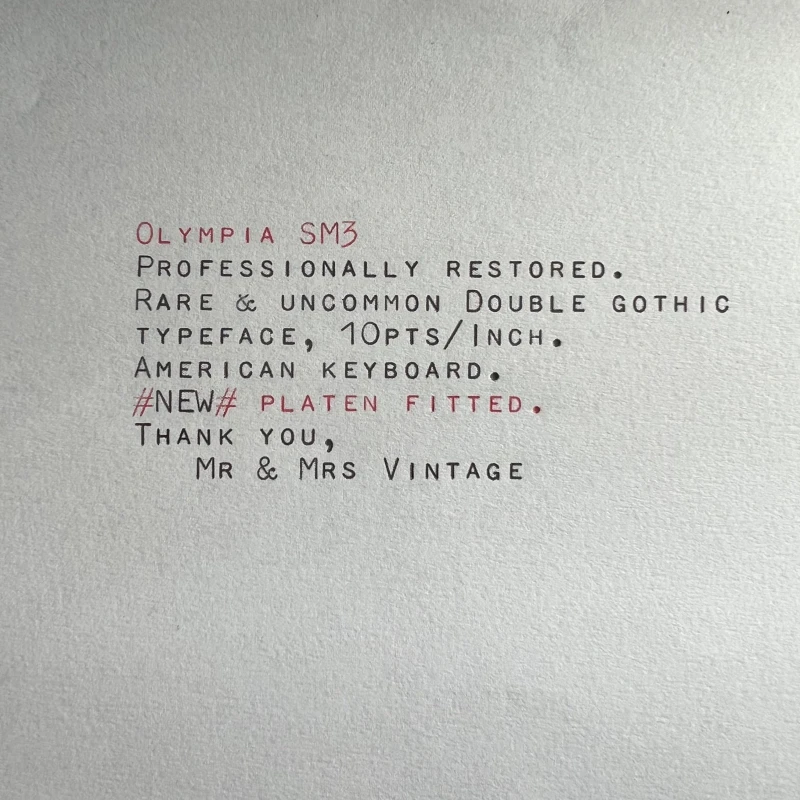
Underwood with only UPPER CASE letters
As a small child (I am 84 years old, right now) I once took a heavy Underwood typewriter, laying in a field somewhere, home on my scooter.
I still have the Underwood and am curious about its use, since it only possesses UPPER CASE lettering (in the letter blocks for upper case- as well as lower case).
Could it have been used for teletype/telegraph/telegram forms etc. and when; wartime? And what is the manufacturing date?
The details:
Typewriter # II-6224266 (II could also be a small OO). On the paper plate and casing is stamped/painted the number 83. The detachable front plate has a (paint-)stamped mark "ASPA".
It is still in working condition, but needs a thorough clean up.
I am curious if any of you can provide details.
How interesting, I have a telegraphers Remington that was serviced by ASPA too. See the link below for photo's op and a type sample. Now I wonder, does your machine have the same typeface?
FYI: Underwood made MILL's (the nick name for telegrapher typewriters). As far as I know MILL's had always a slashed zero. See also the links below.
Since the  ink on the ribbon has dried, I unfortunately can’t provide a sample of the lettering.
However I am still interested in the history of those ‘single case’ machines/Underwoods.
Many typewriter manufacturers offered what some called their "Double Gothic" type-script...for both standard and portable machines.
Here is an example of that type-script on a portable Olympia SM3 machine.
Your picture of the keyboard clearly shows both a figure 1 and a slashed zero. This points strongly towards a Morse typewriter. The 7-digit serial number beginning with 62- indicates 1947, the rimmed Bakelite letter keys and green function keys are in keeping with this model year range. From what I understand, portable units were usually used on ships for recording morse messages. As your unit is definitely not a portable, it may have been a naval or military base unit, or a telegraph writer.
If you can get your hands on a sheet of carbon paper, an acceptable type sample can be generated using carbon paper and plain white paper together leaving the bichrome selector on stencil. If the type slugs cut through the carbon paper, sandwich the carbon between 2 sheets of paper. Hope this points you in the right direction,